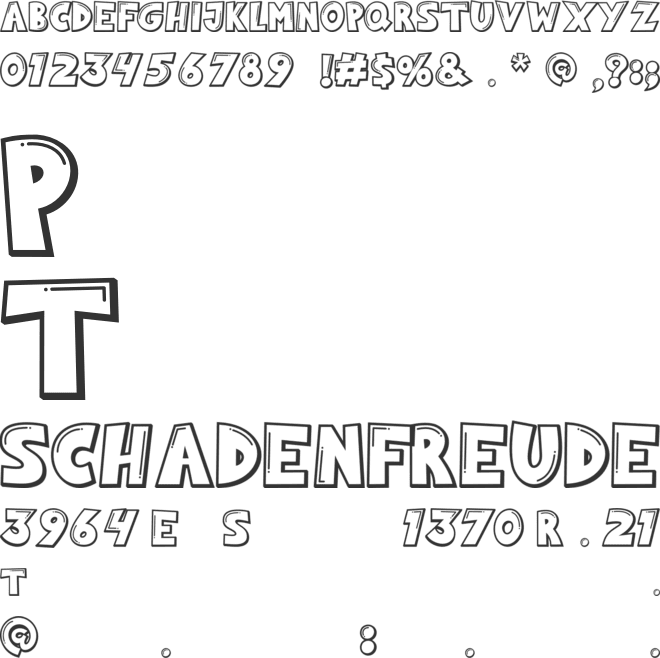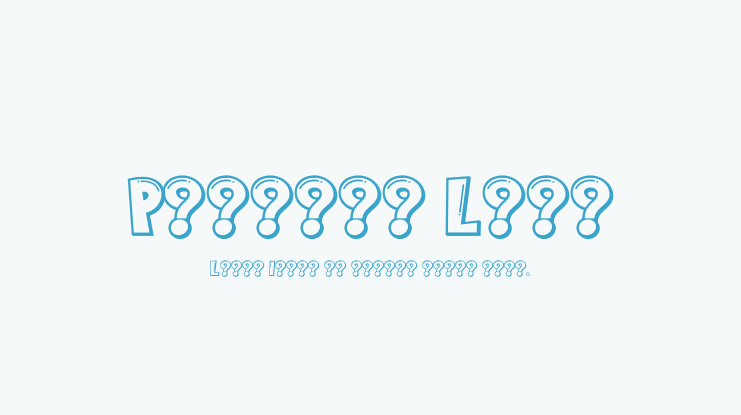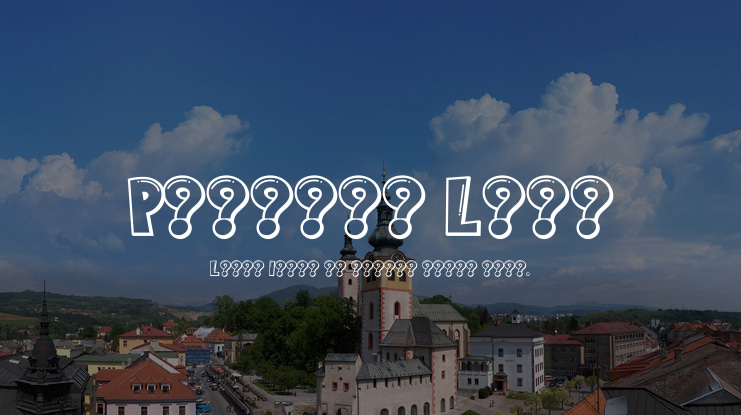
Plastic Love Font
Display Fonts in cartoon style, with accents such as plastic, similar to plastic. The font is cheerful, friendly and easy to read. If you want to make a headline that is not formal, then this font is suitable, children's books, greeting cards, posters, decorations for parties and much more.